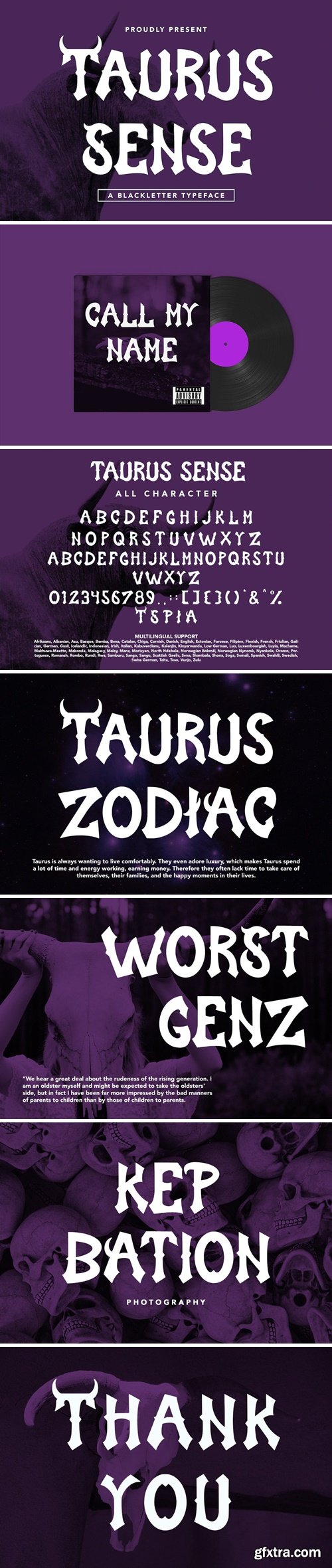
太古感知字体
Is a blackletter typeface font that is inspired by gothic and horror style because it's shape is very unique and is perfect for any project that you will use with this theme.